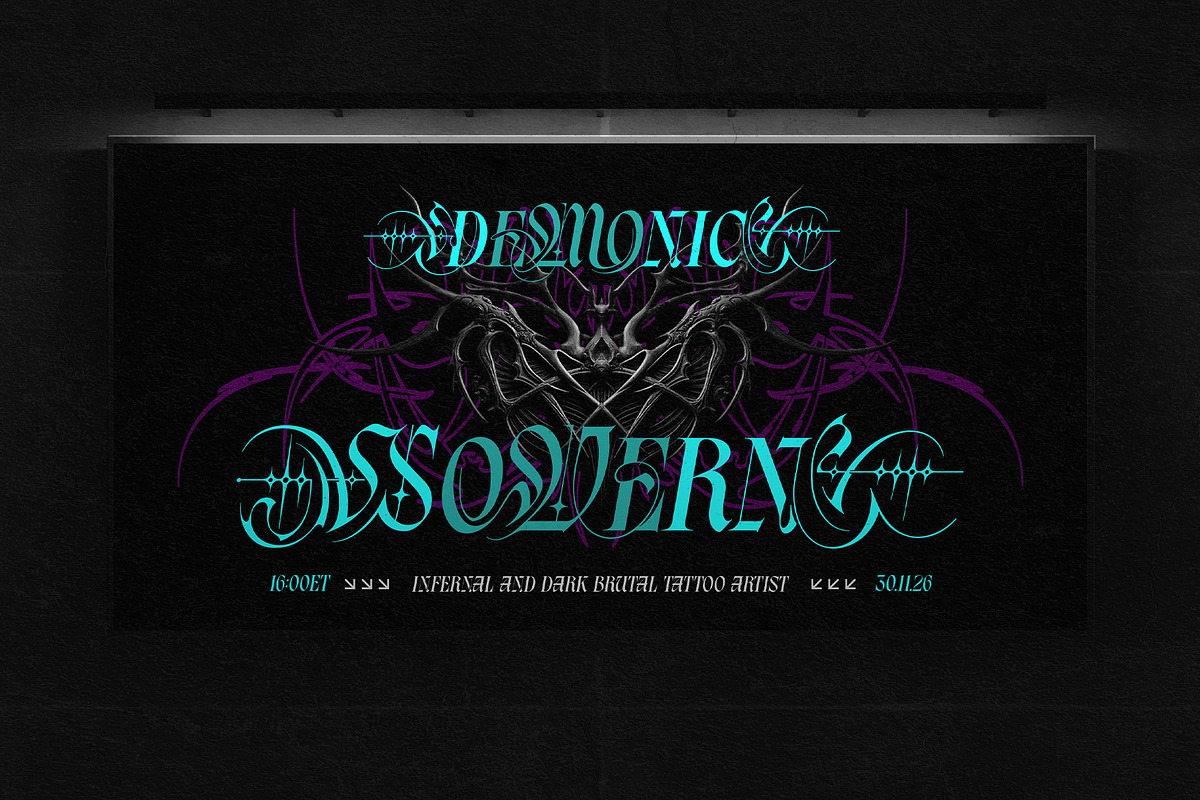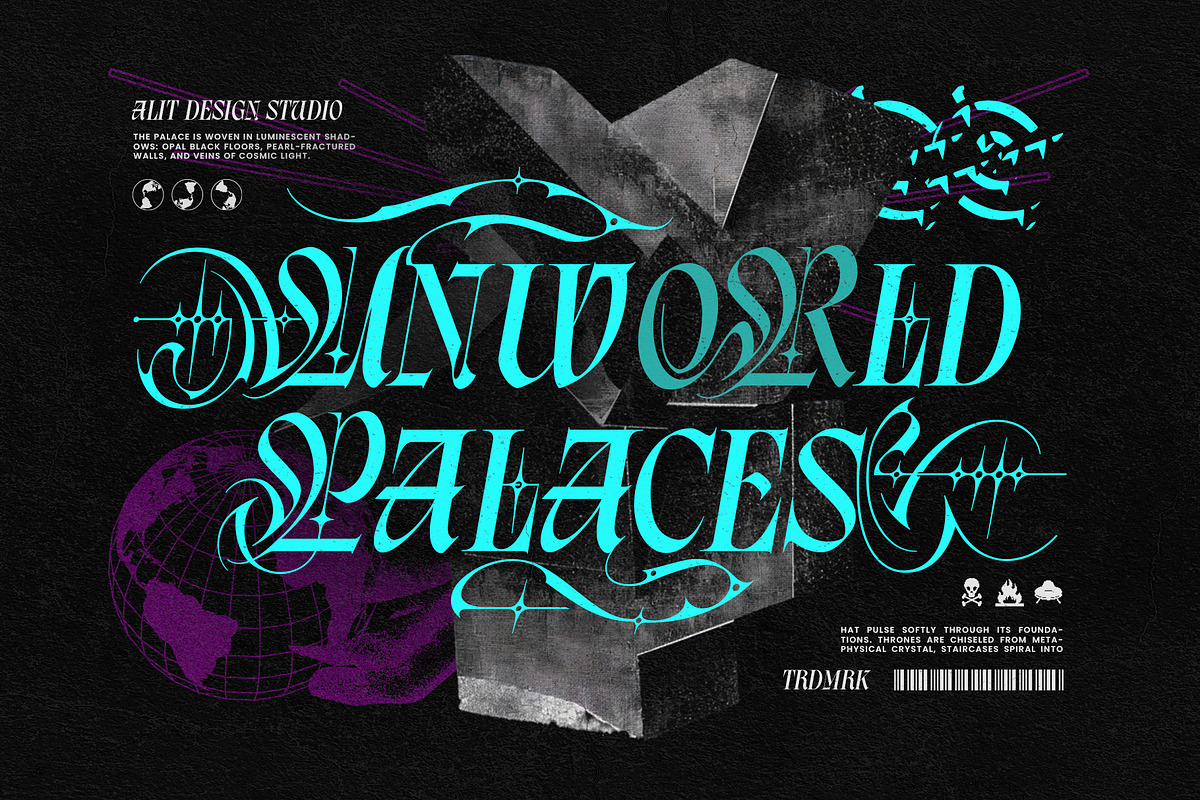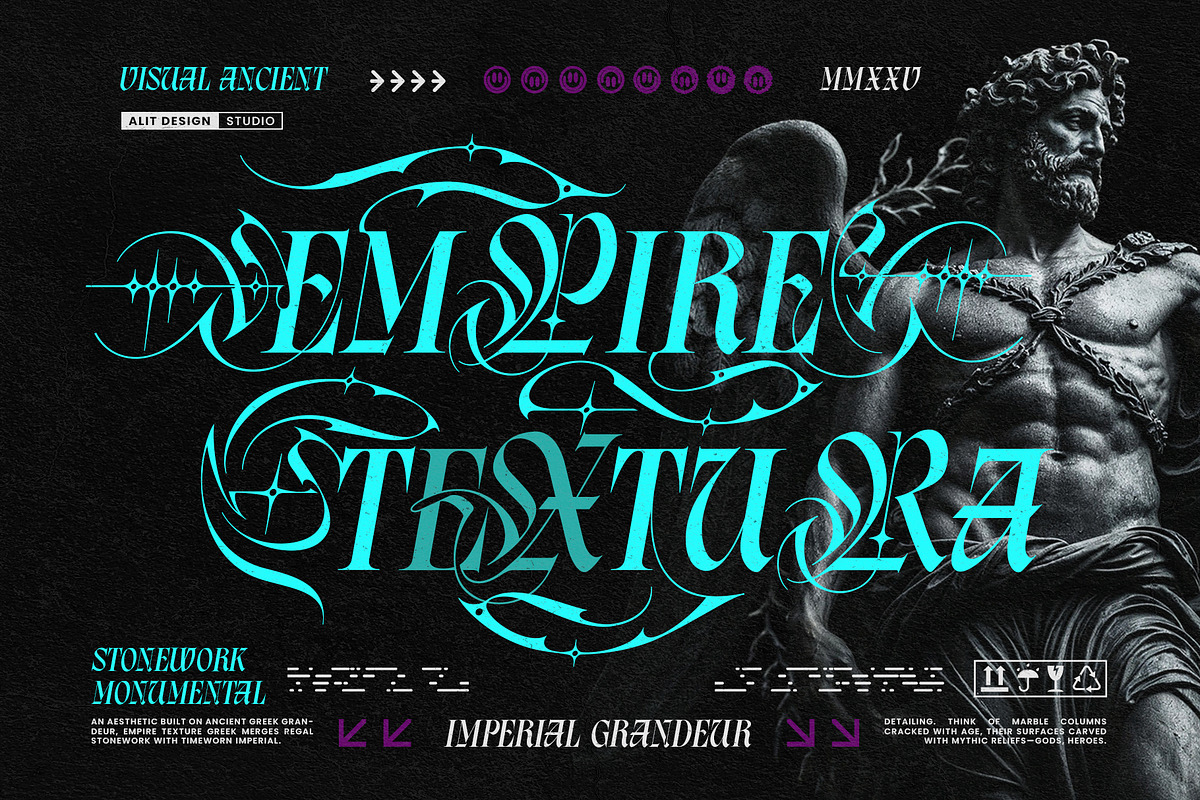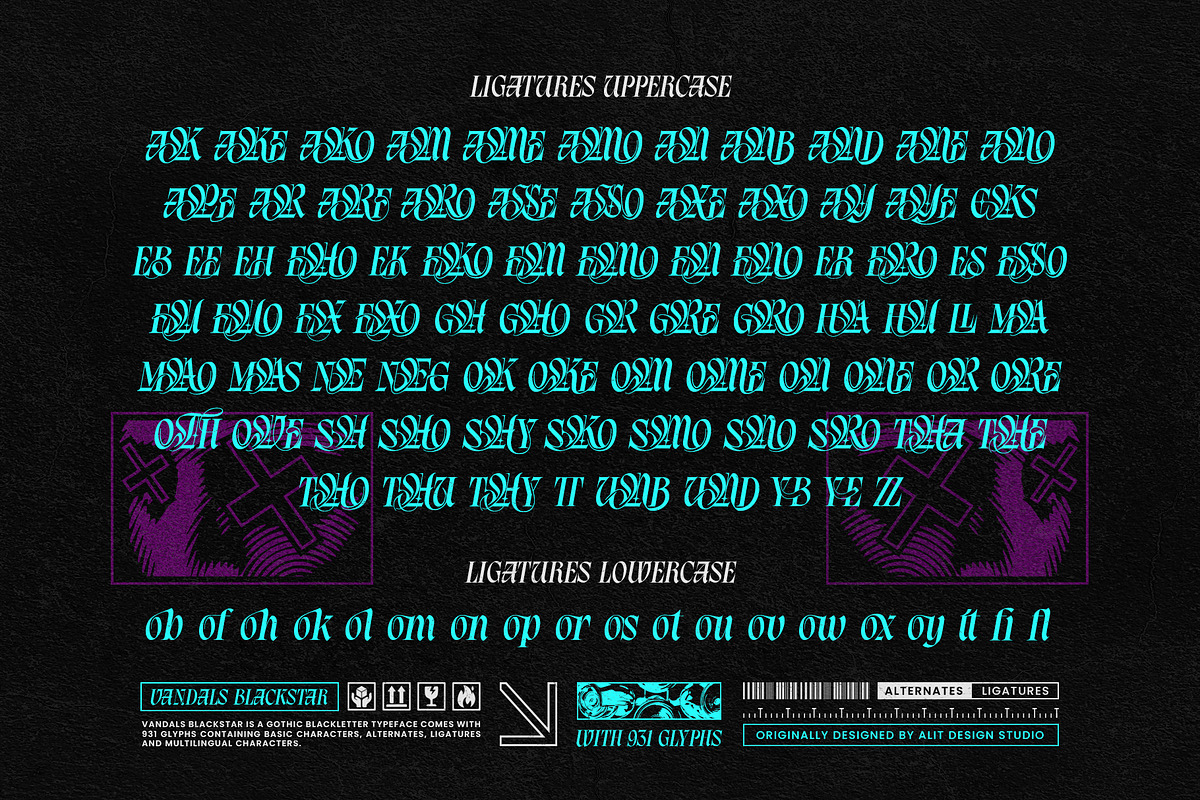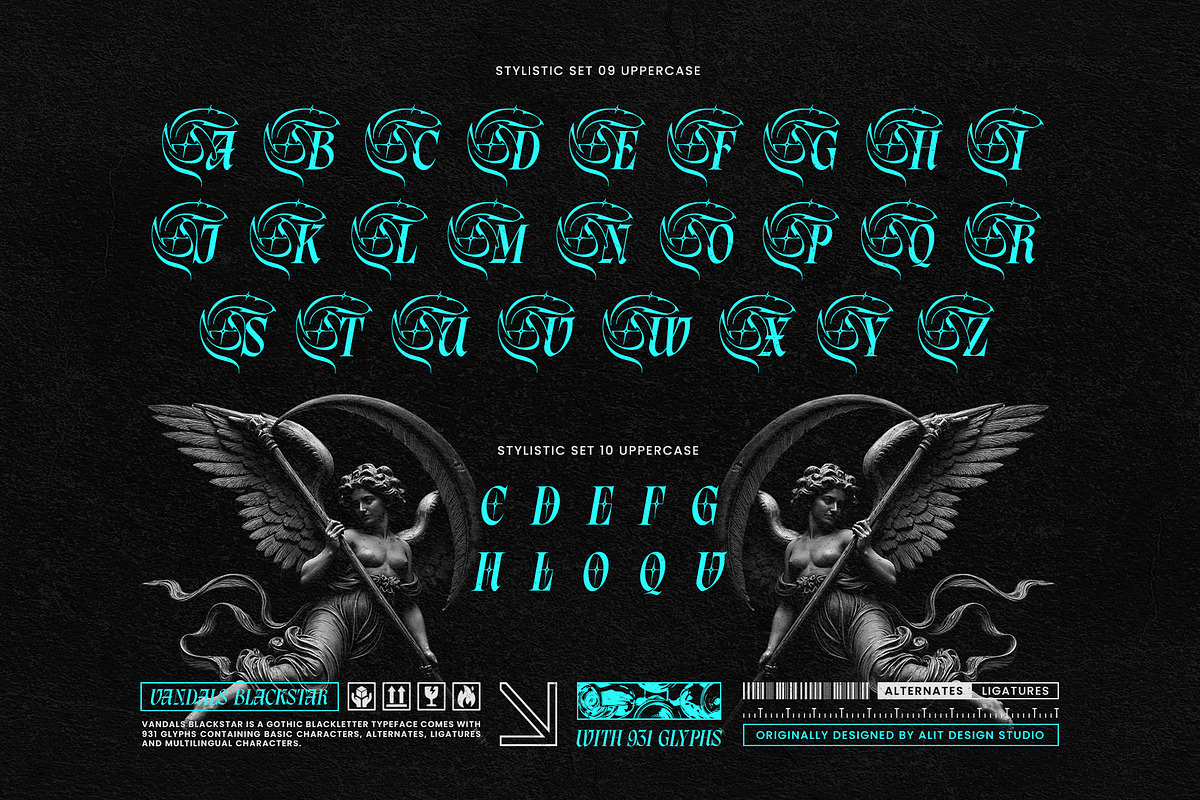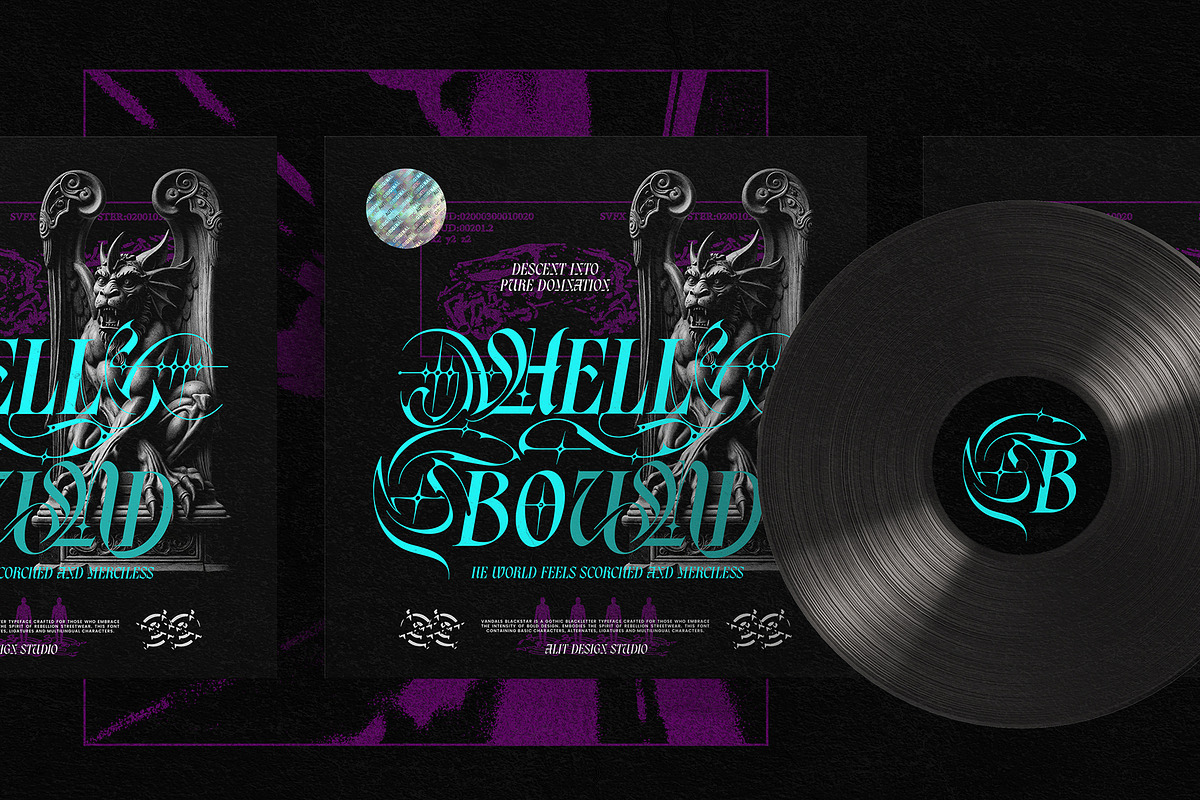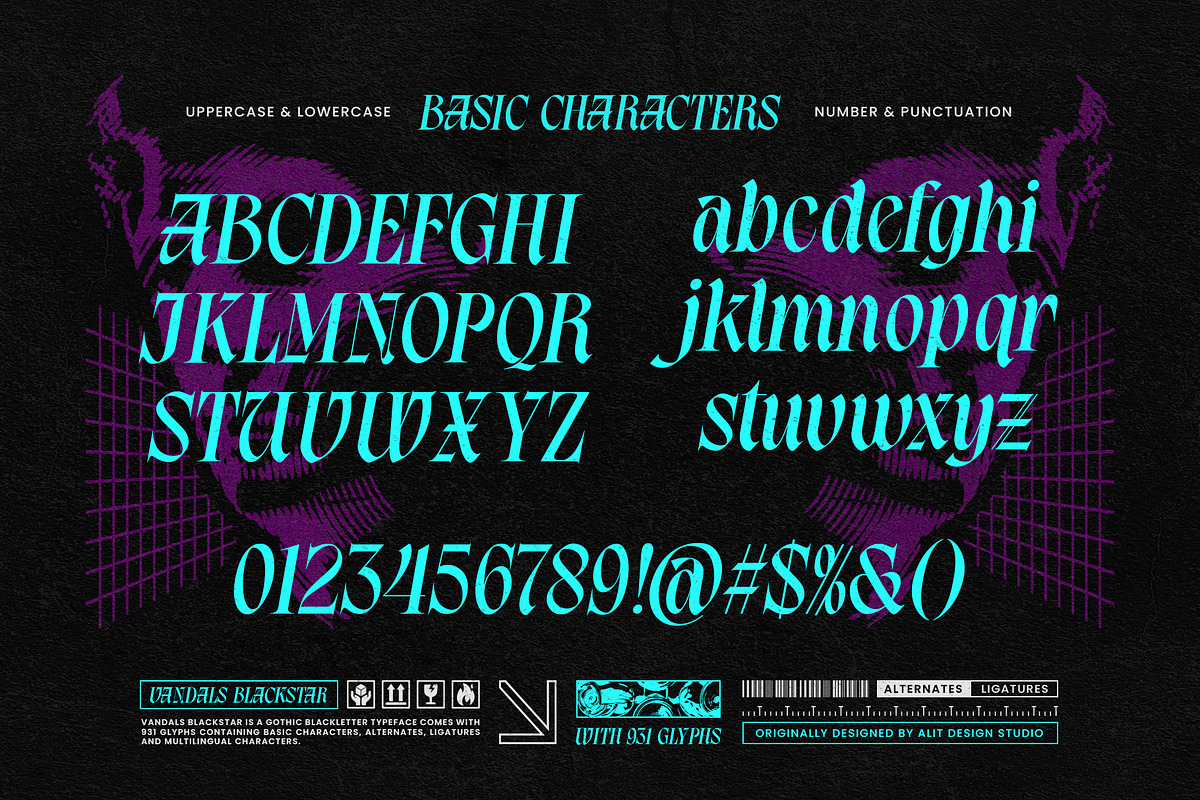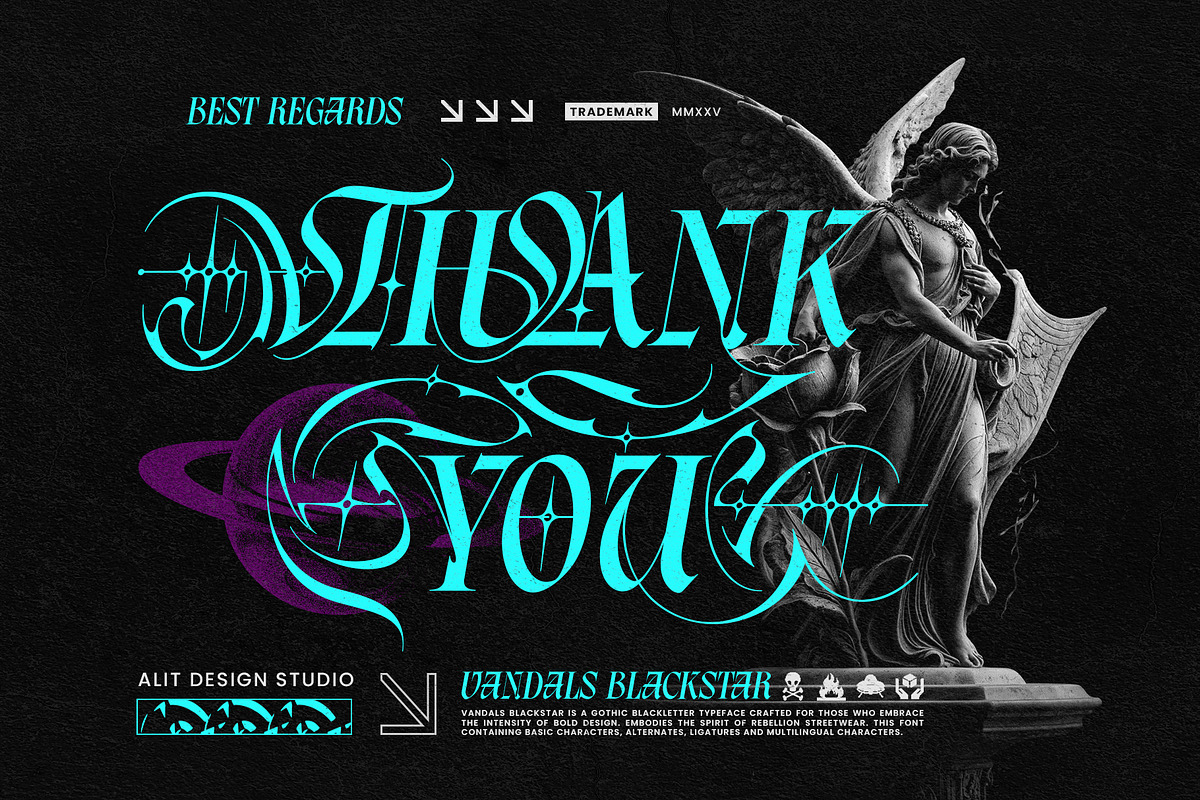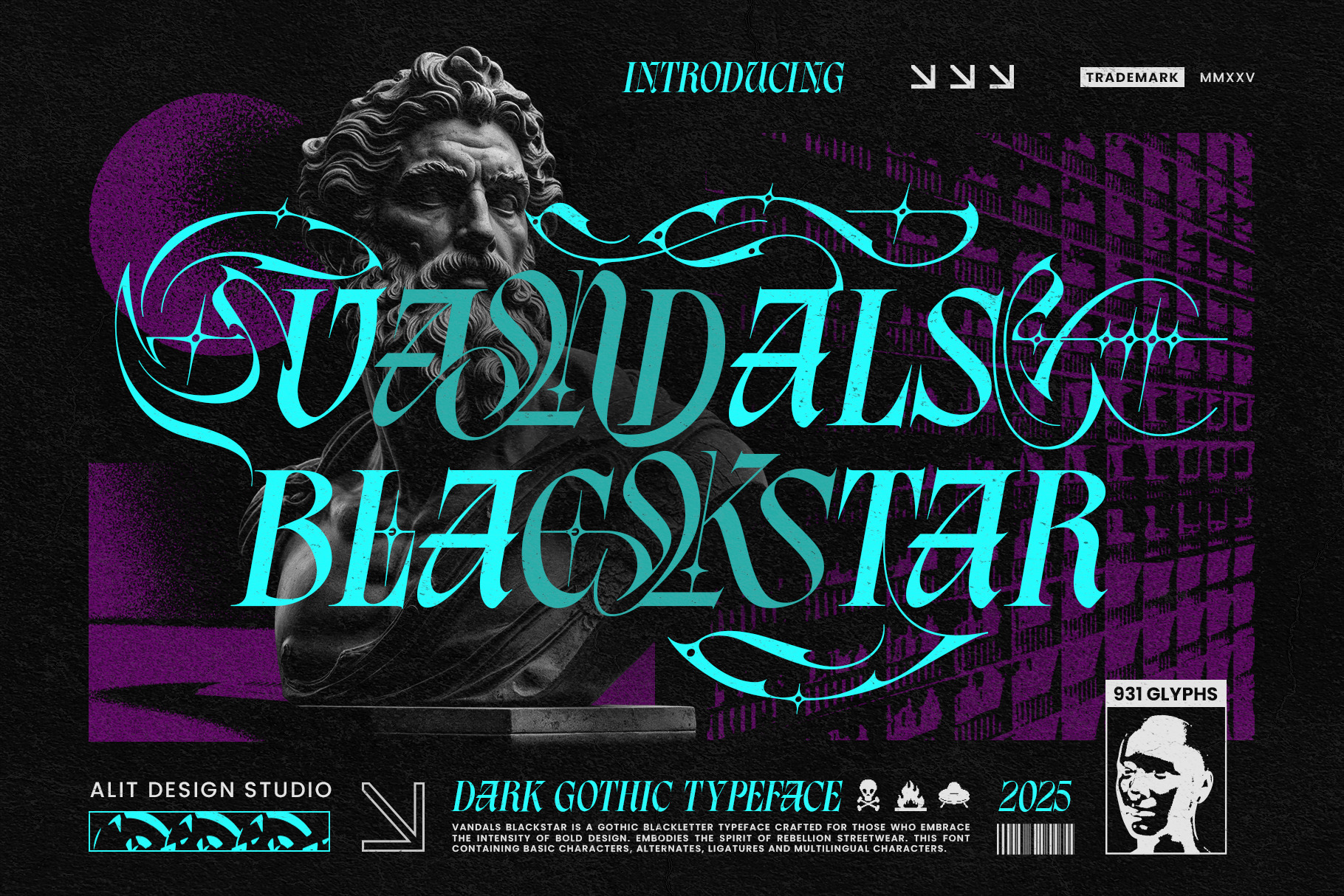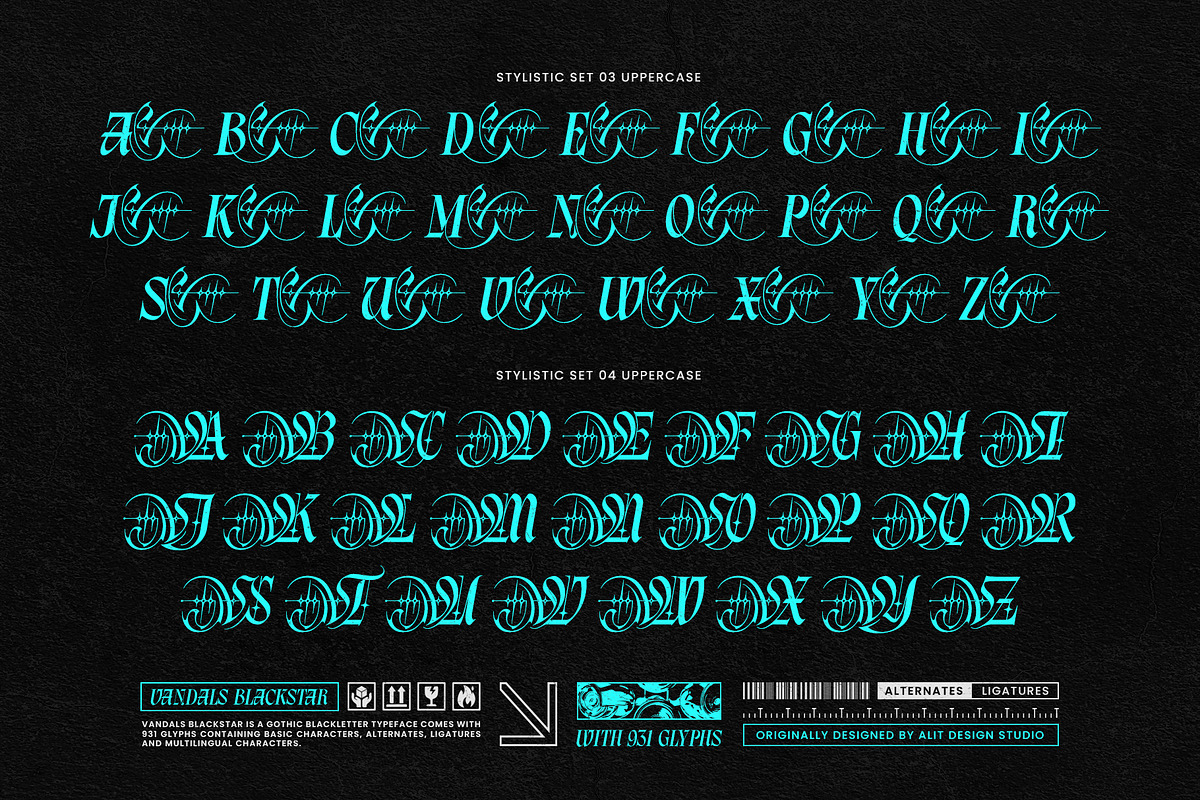
Vandals Blackstar Typeface
Vandals Blackstar: The Sovereign of Dark Gothic Typography
Unleash the chaos. Embrace the grandeur.
Introducing Vandals Blackstar, a typeface born from the collision of ancient imperial tradition and the rebellious spirit of modern streetwear. This is not merely a font; it is a visual weapon designed for those who dare to embrace the intensity of bold design.
Vandals Blackstar reimagines the classic Blackletter style, injecting it with a sharp, lethal elegance. It captures the essence of "Starfall Gothica"—a cosmic ruin where sharp, thorn-like terminals meet fluid, liquid-like swashes. It is the perfect balance between the stonework monumentalism of the past and the distorted energy of the future.
Why Vandals Blackstar Stands Alone:
- A Massive Glyph Library: With a staggering 931 glyphs, this typeface is a complete typographic toolkit. It allows you to create logos and headlines that look custom-made, avoiding the repetitive look of standard fonts.
- Insane Versatility (4 Stylistic Sets): As seen in the previews, the font includes four distinct uppercase stylistic sets. Whether you need the decorative complexity of Stylistic Set 02 (with its horizontal strike-throughs and ornate flourishes) or the sharper, cleaner edge of the basic set, you have total control.
- Aggressive Elegance: Every letter is crafted with dynamic thick-and-thin strokes, creating a rhythm that is both aggressive and beautifully readable.
- Streetwear Brands: Create hoodies and tees that demand attention.
- Music Industry: Ideal for Heavy Metal, Rock, and Trap album covers or band logos.
- Tattoo & Merchandise: The ornate flow makes it perfect for intricate lettering art.
- Edgy Branding: For barber shops, skate brands, or beverage labels looking for a "Visual Ancient" aesthetic.
- Vandals Blackstar Regular: The core typeface.
- Full Character Set: Uppercase, Lowercase, Numerals, and Punctuation.
- Extensive Alternates & Ligatures: To create seamless, flowing text.